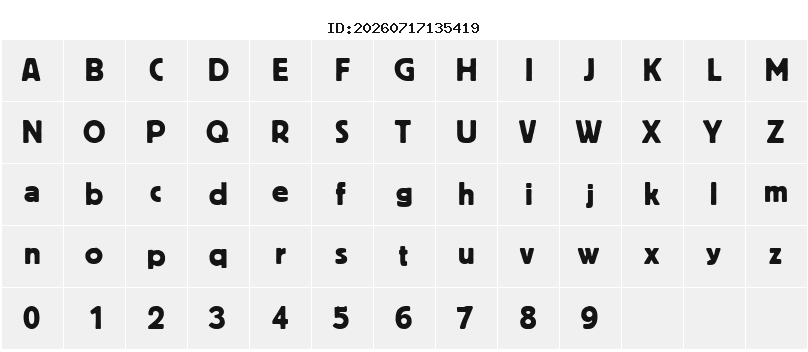
• Font Name: Blofeld DB
About Blofeld DB.ttf
Blofeld DB.ttf is a modern, elegant sans-serif font designed for ultimate readability and visual harmony. Perfect for branding, headlines, web design, and print materials.